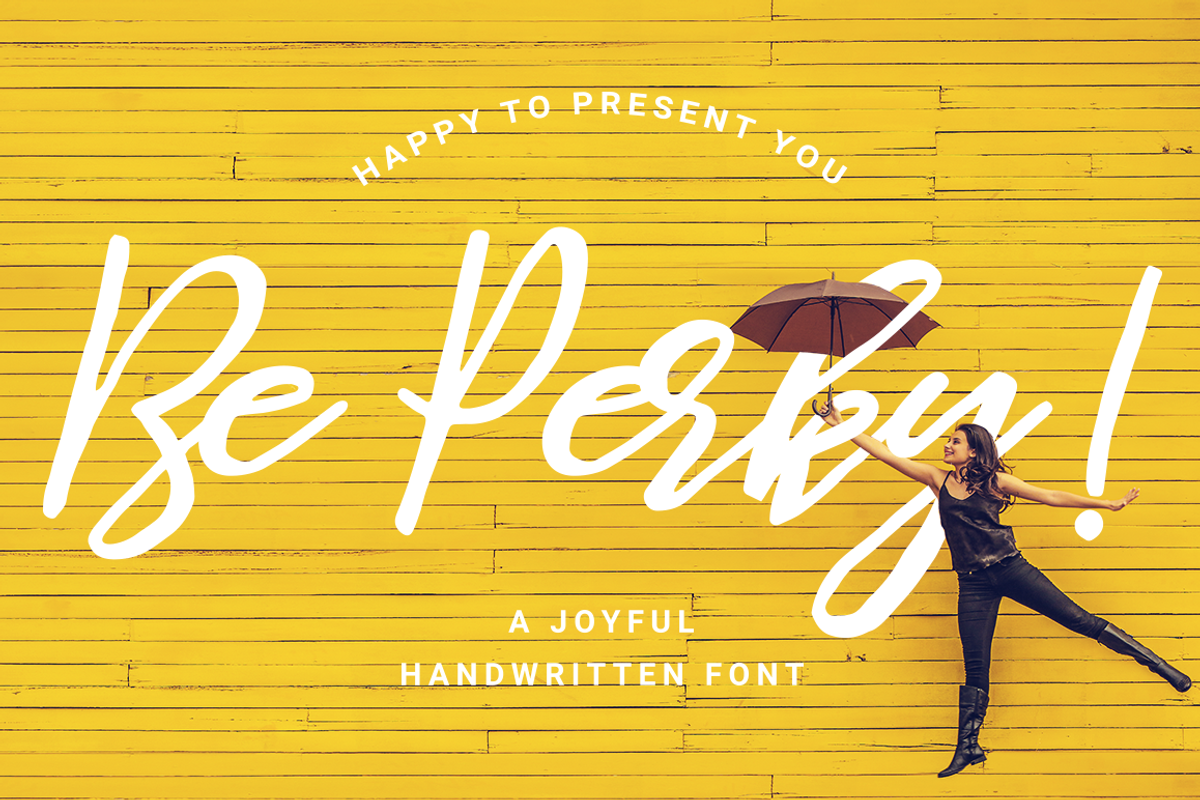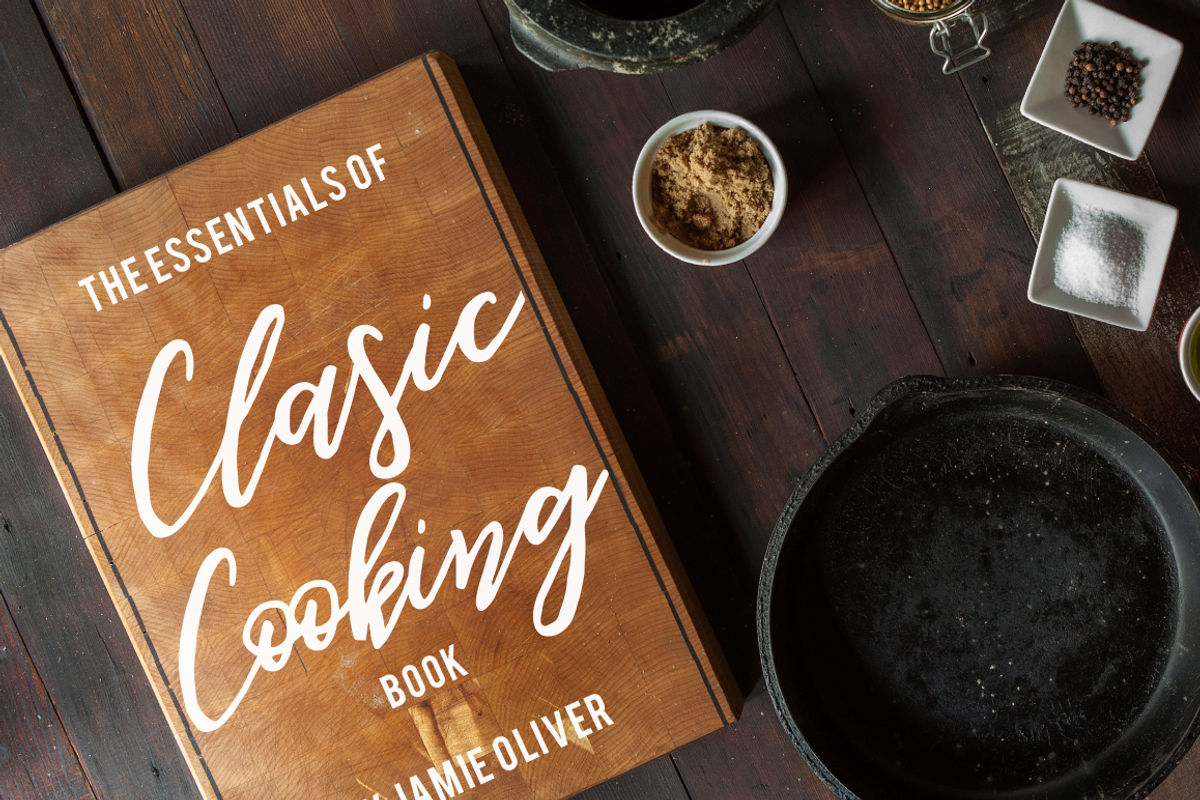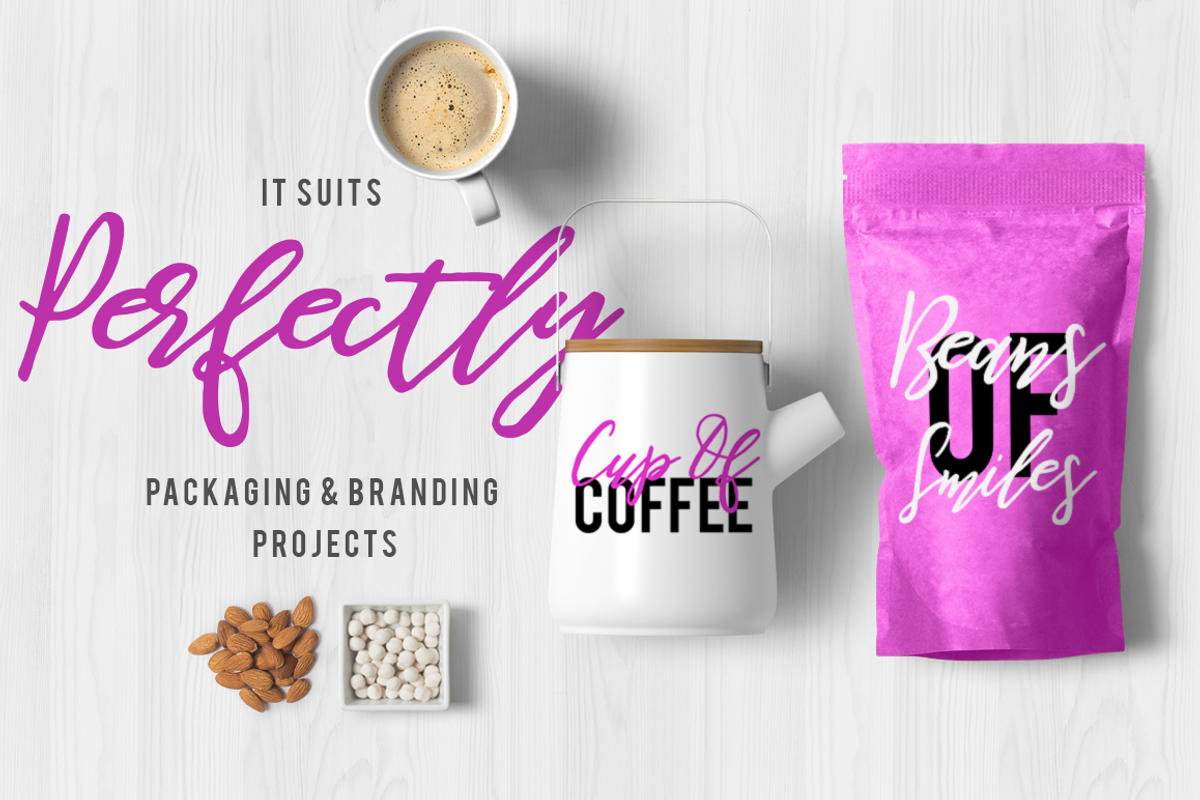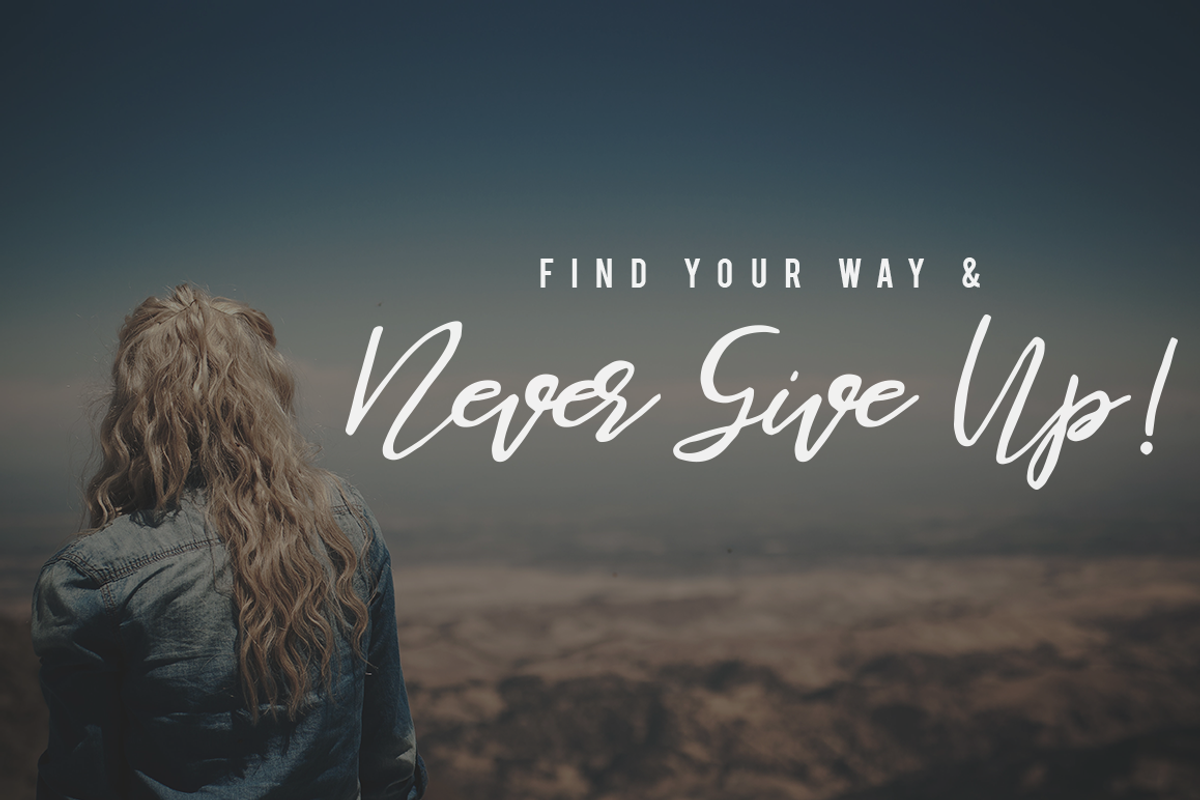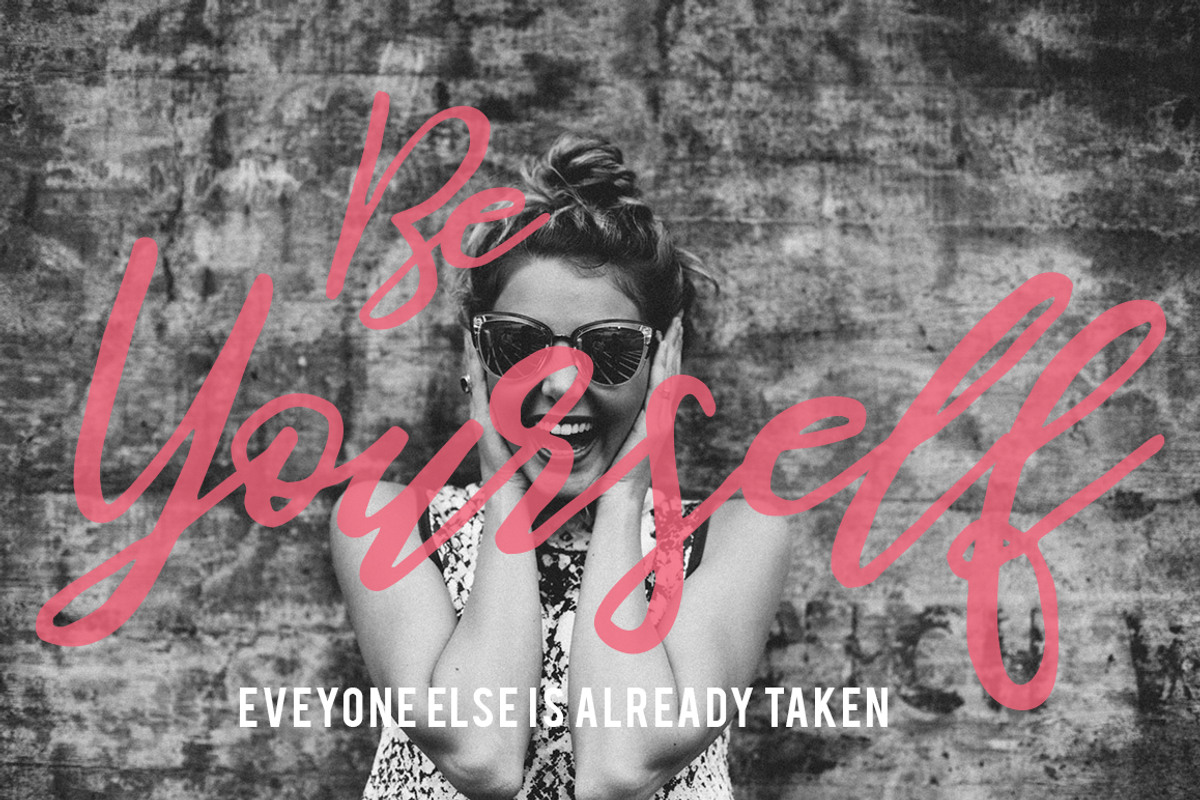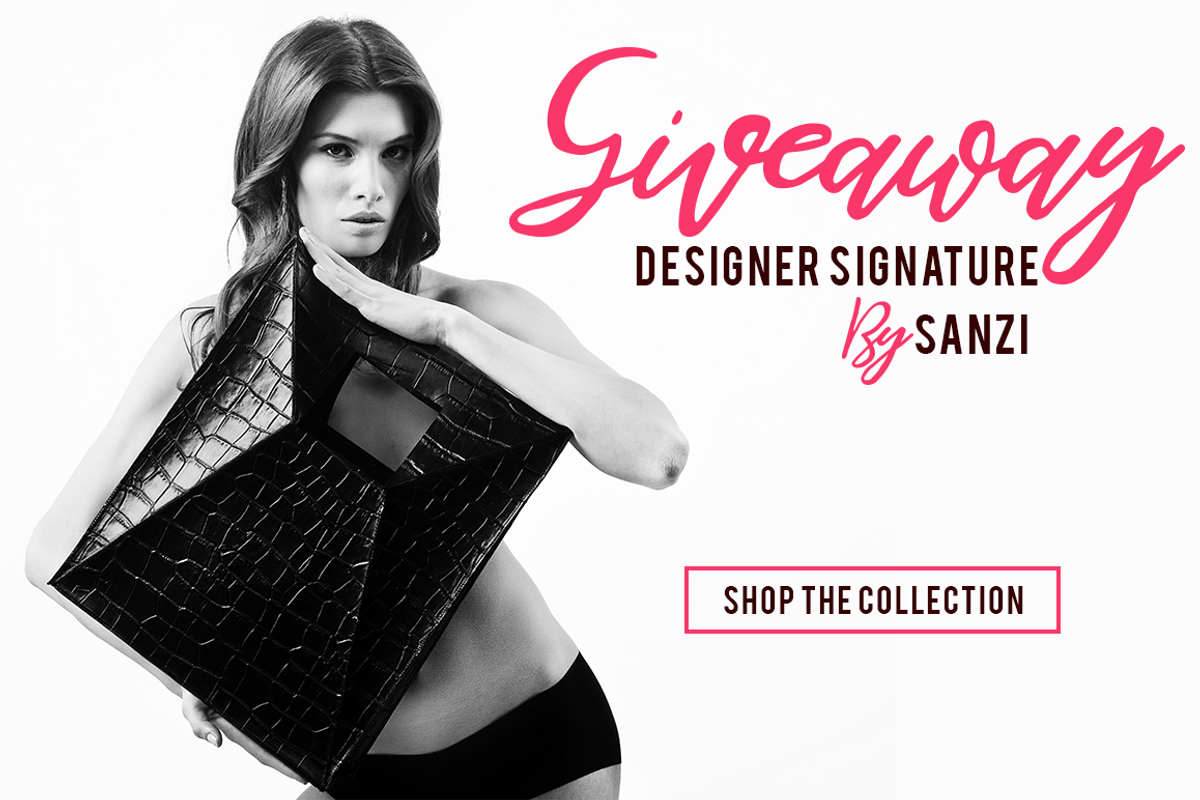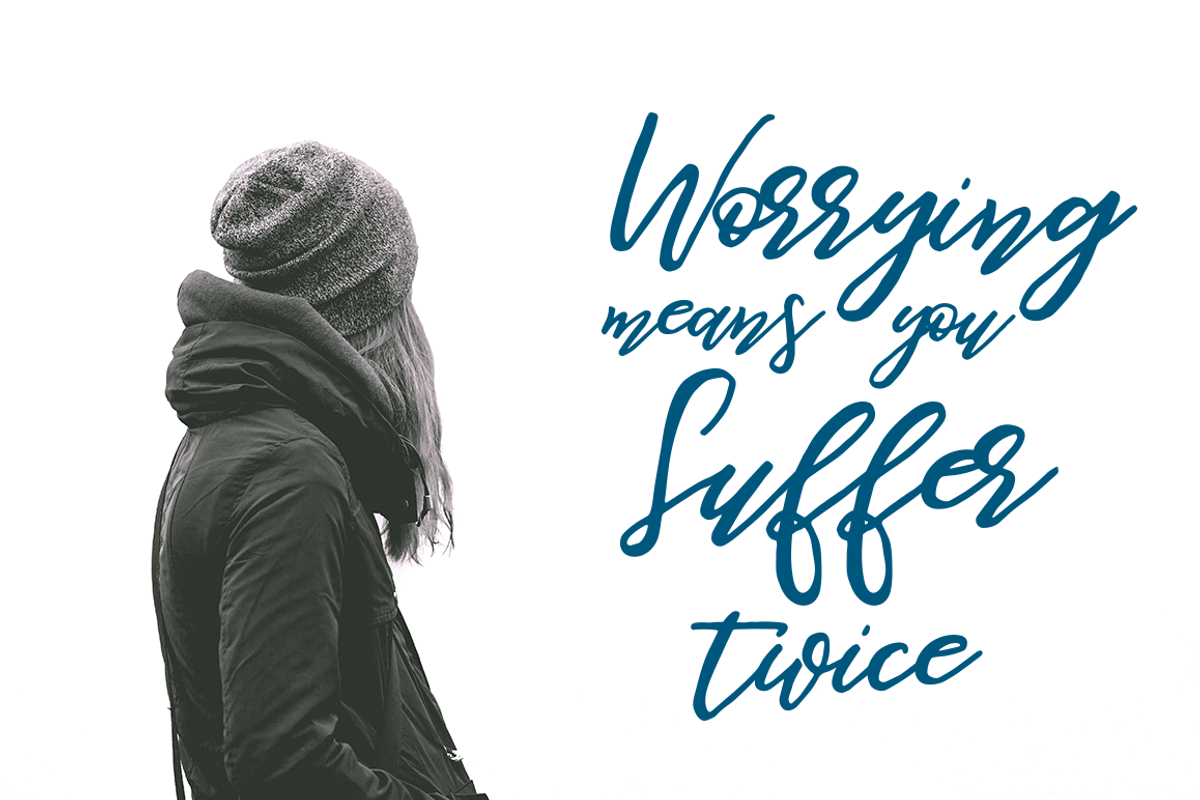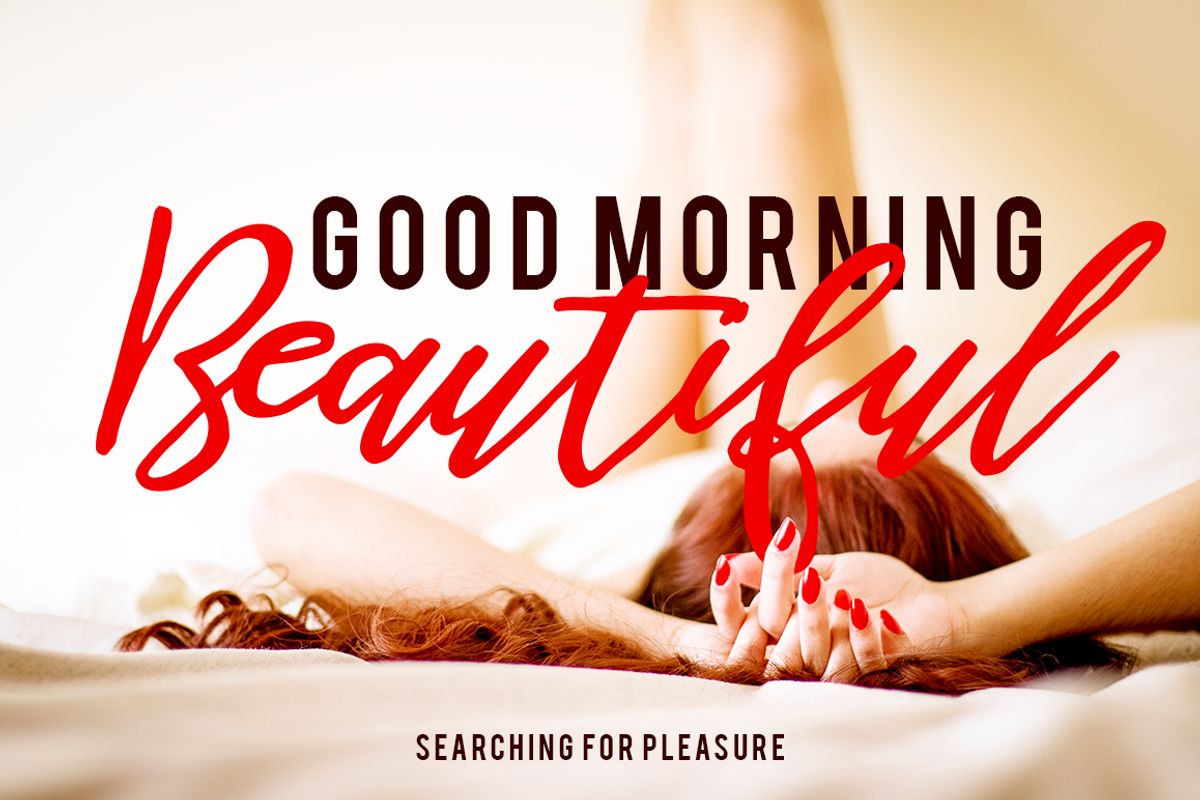
Be Perky! Handwritten Font
Be Perky! Handwritten Font by LovePowerDesigns is a font selected for branding, posters, packaging, typography.
Be Perky! Handwritten Font by LovePowerDesigns fits naturally into Branding, posters, packaging, typography.